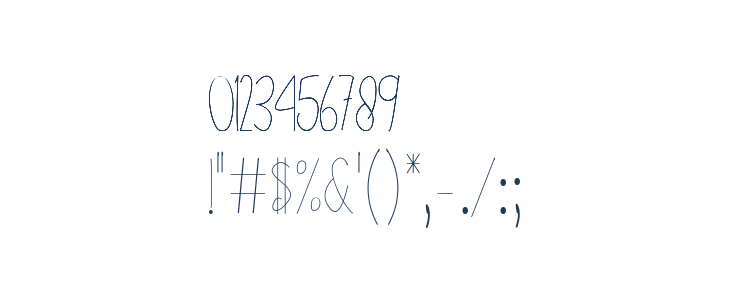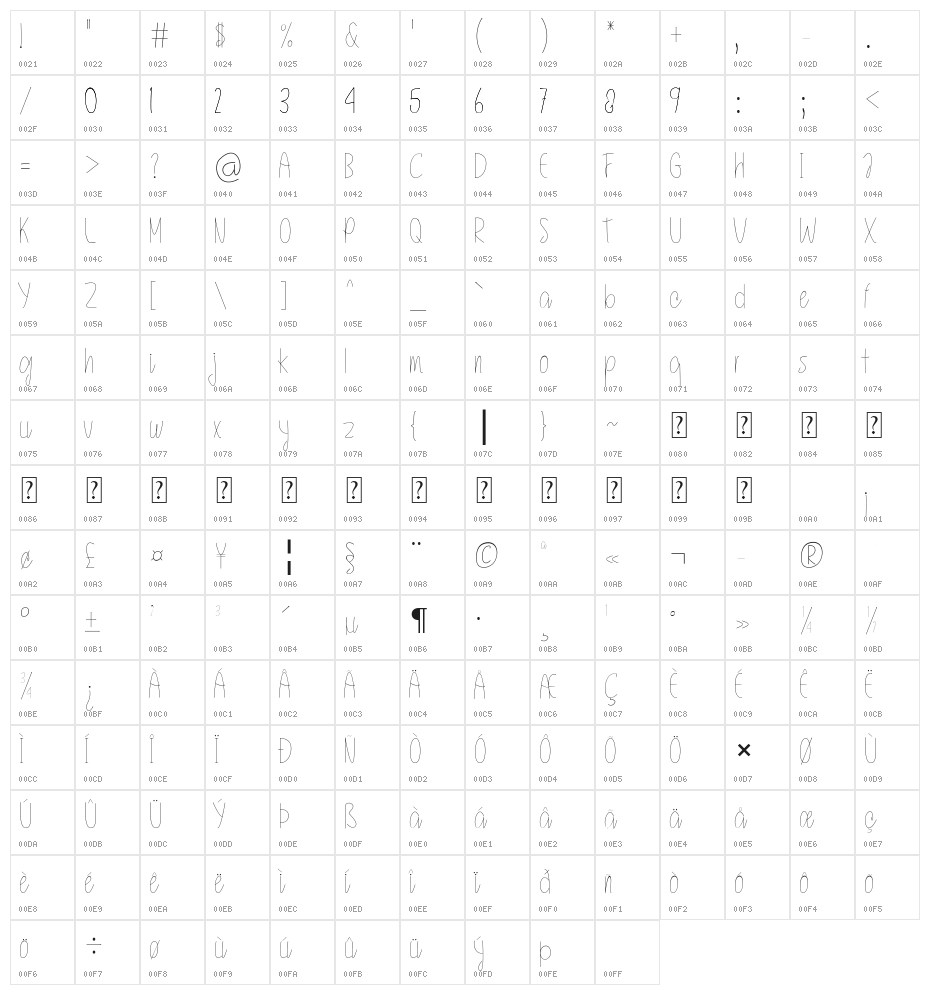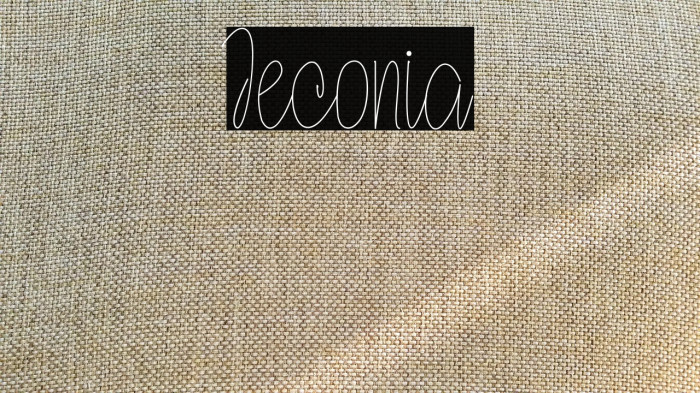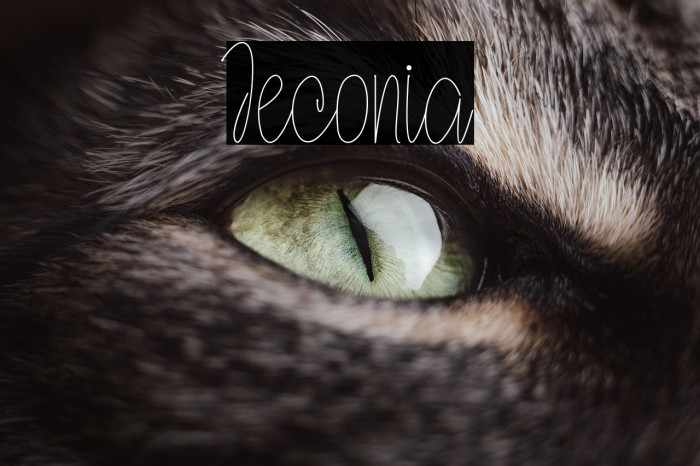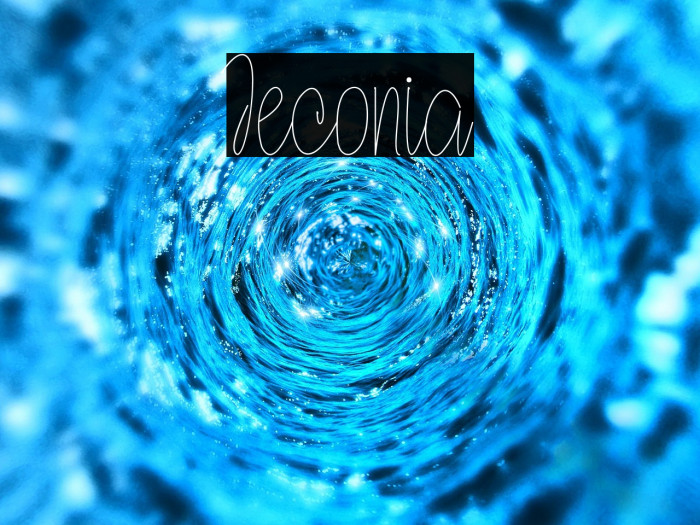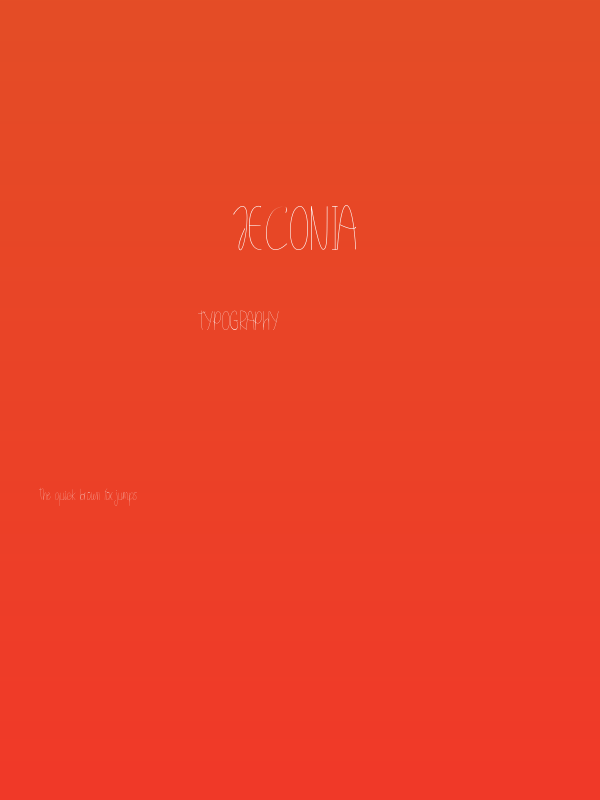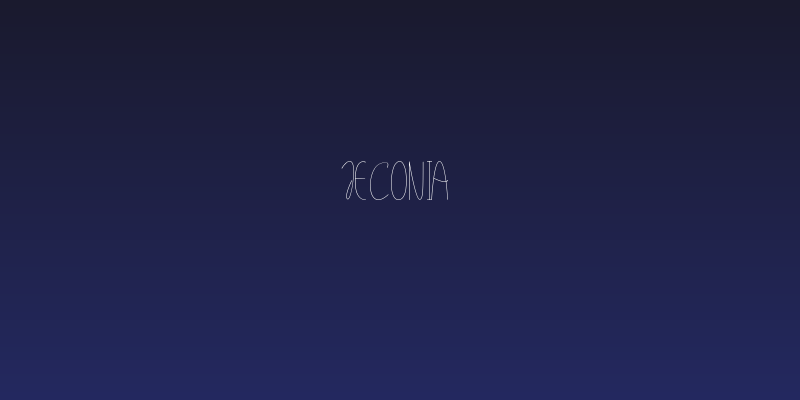
Jeconia Font
Jeconia Description
This font features a delicate and whimsical handwritten style, characterized by tall, narrow letters with a playful and casual appearance. The strokes are thin and consistent, giving it a light and airy feel. Each character has a unique flair, with subtle curves and loops that add to its charm. The font maintains a consistent baseline, while the ascenders and descenders extend gracefully, enhancing its elegant look. The numbers and special characters follow the same design principles, ensuring a cohesive and harmonious appearance throughout.
| Proposed Projects | Ideal for greeting cards, invitations, personal branding, and creative projects that require a touch of elegance and personality. |